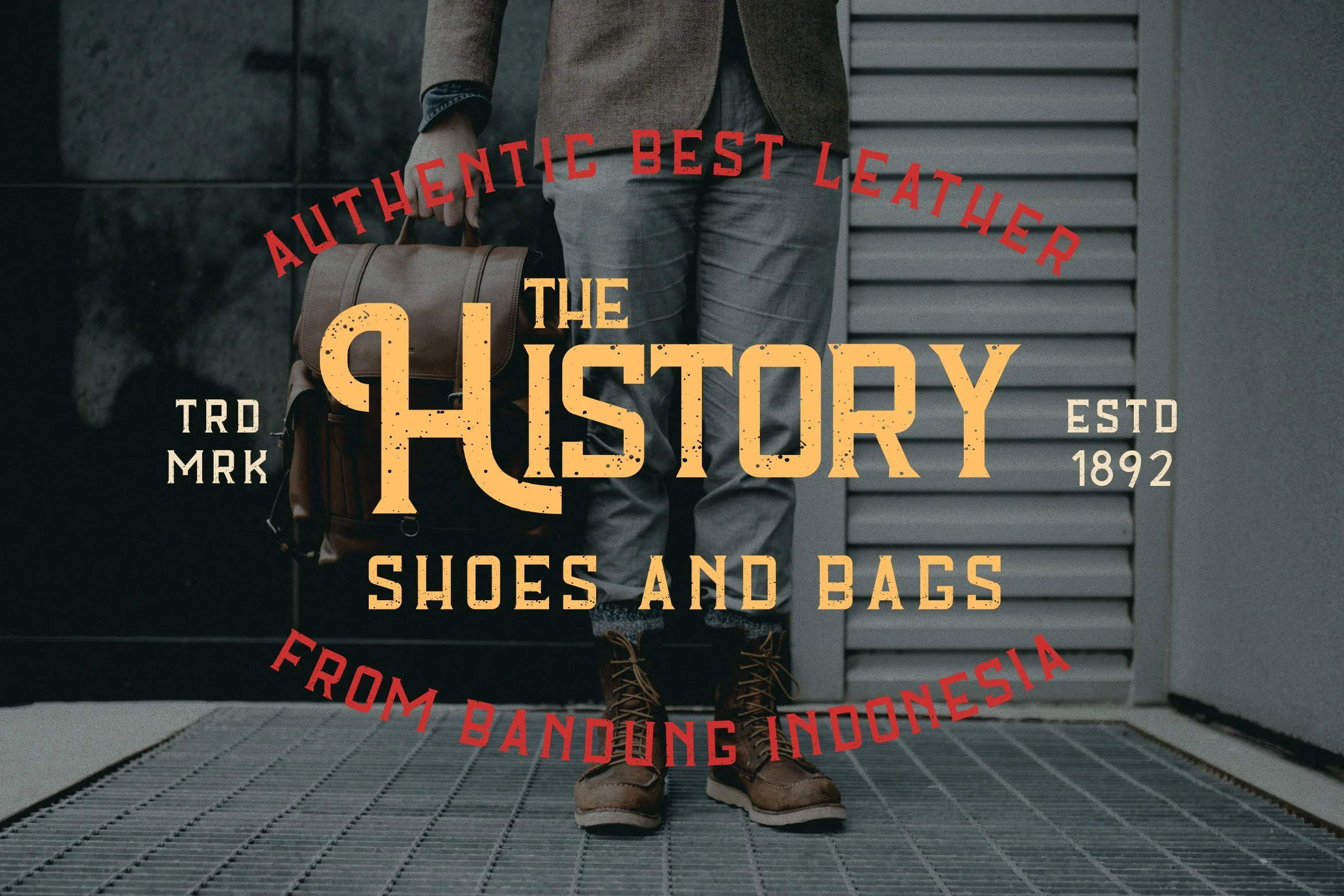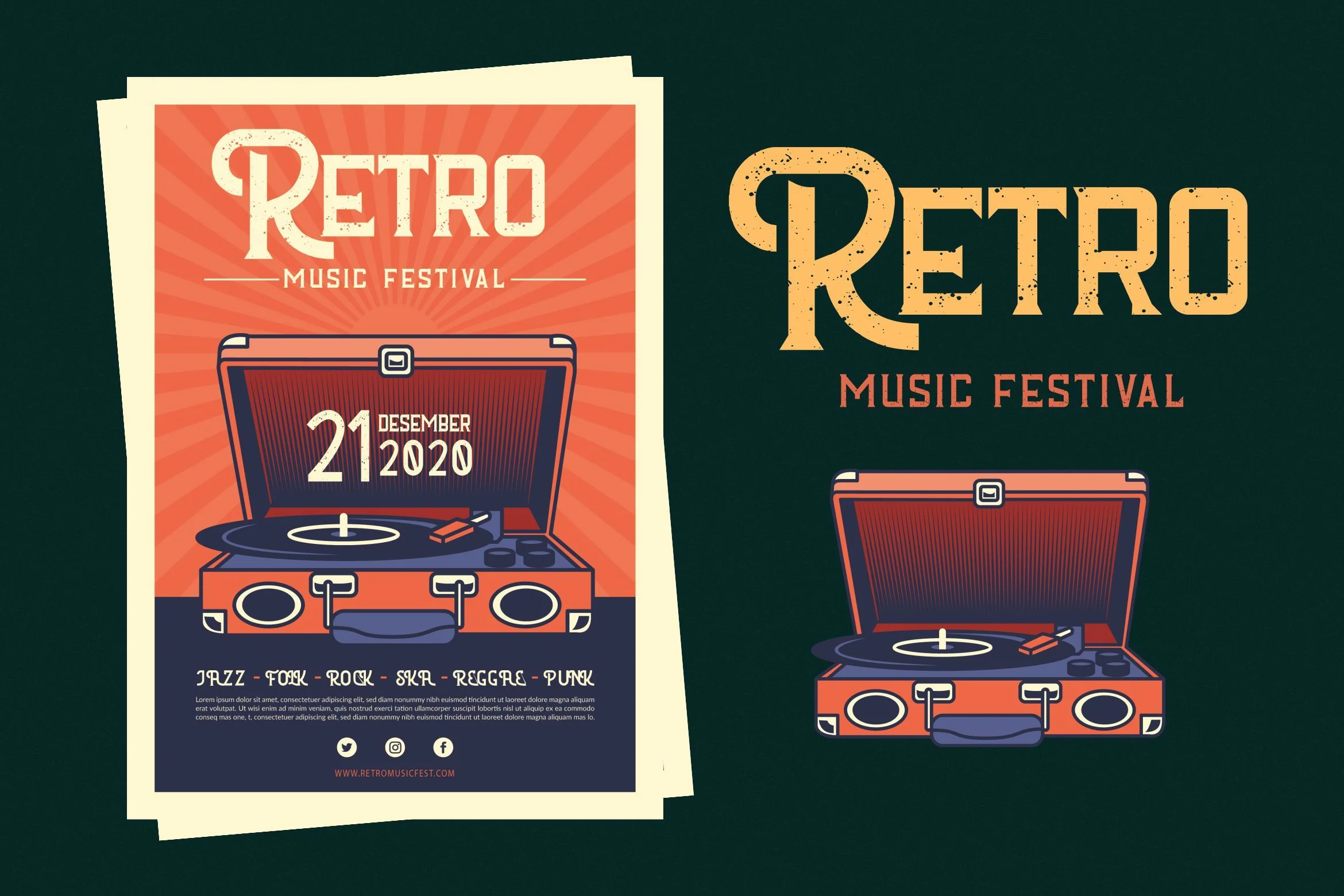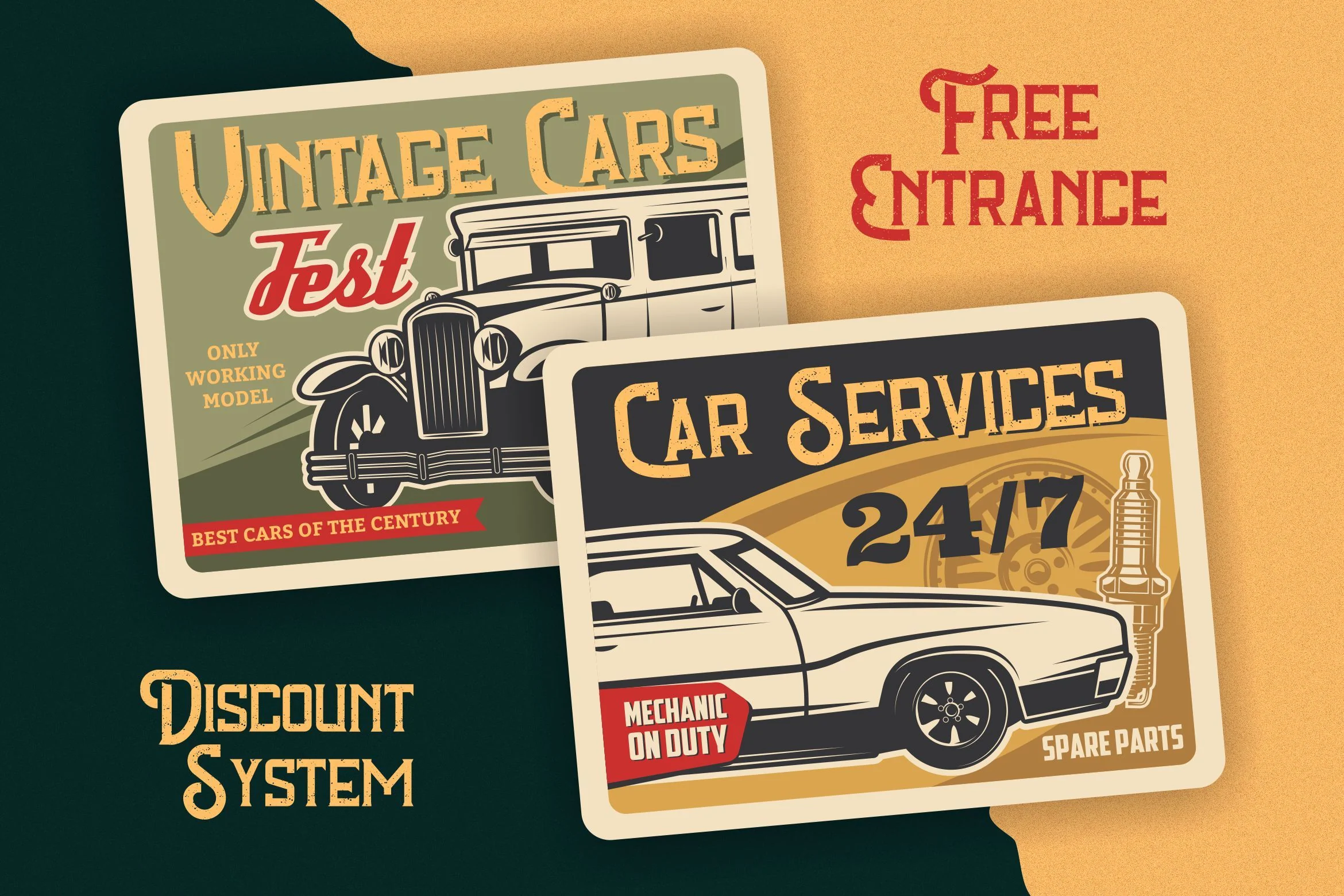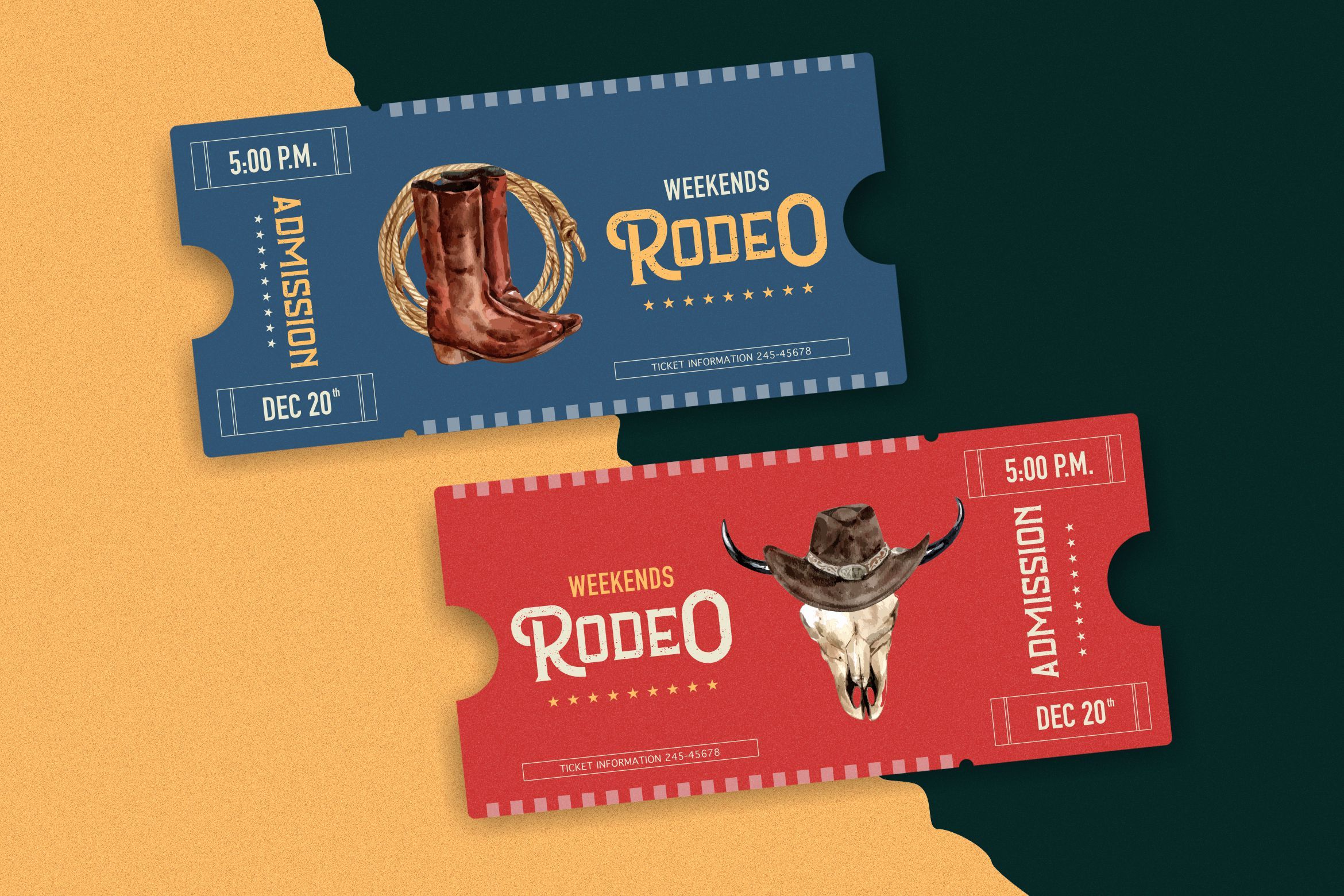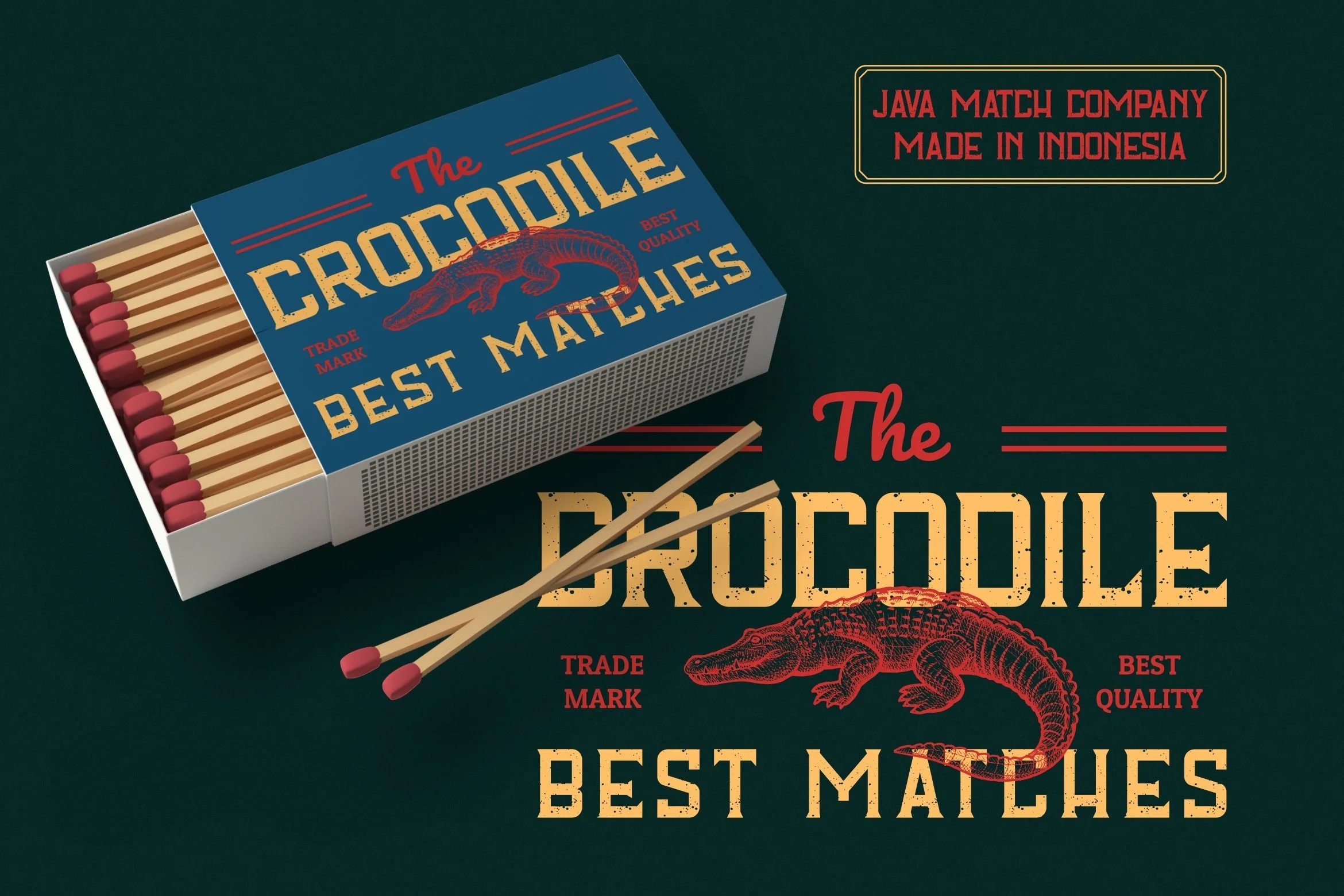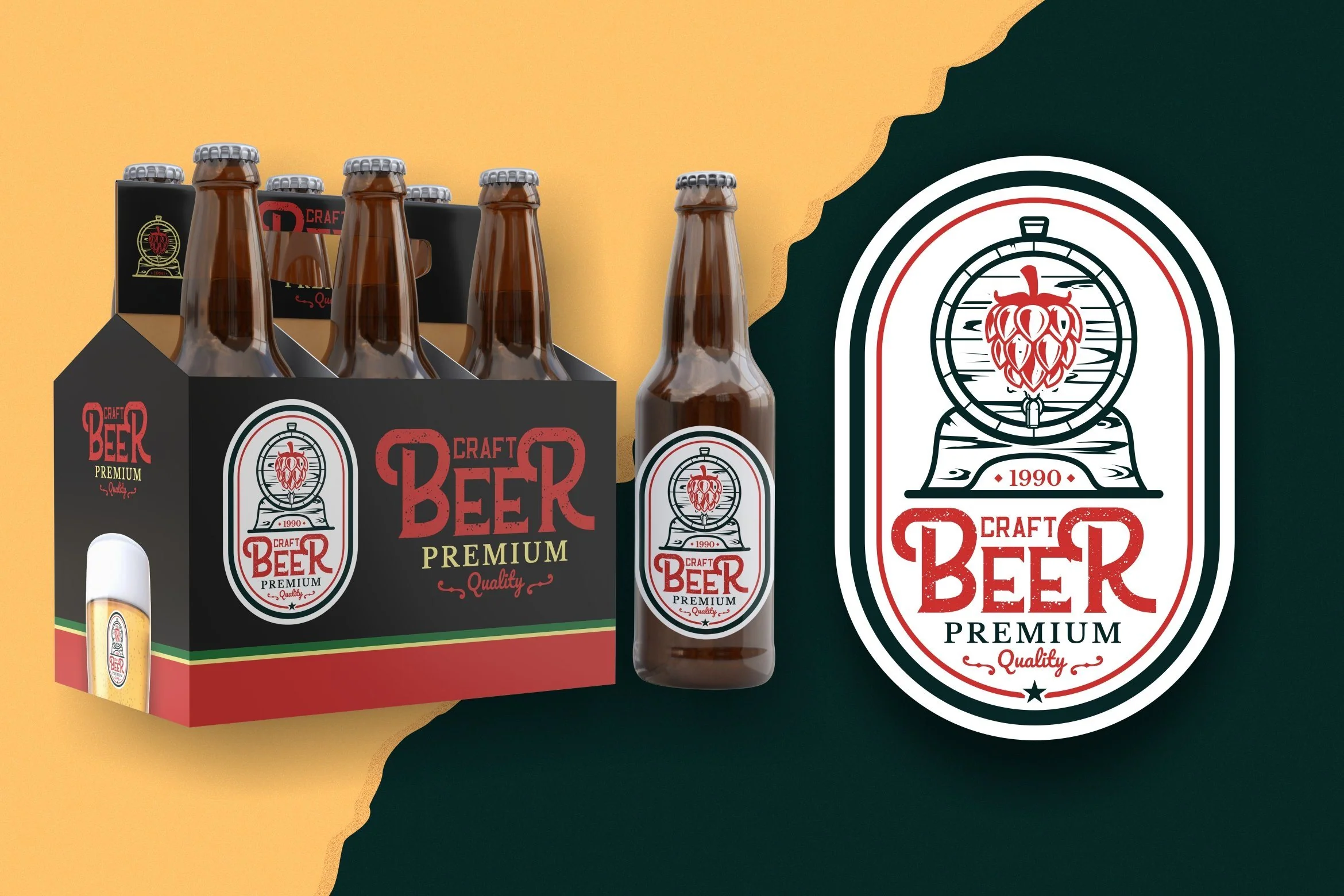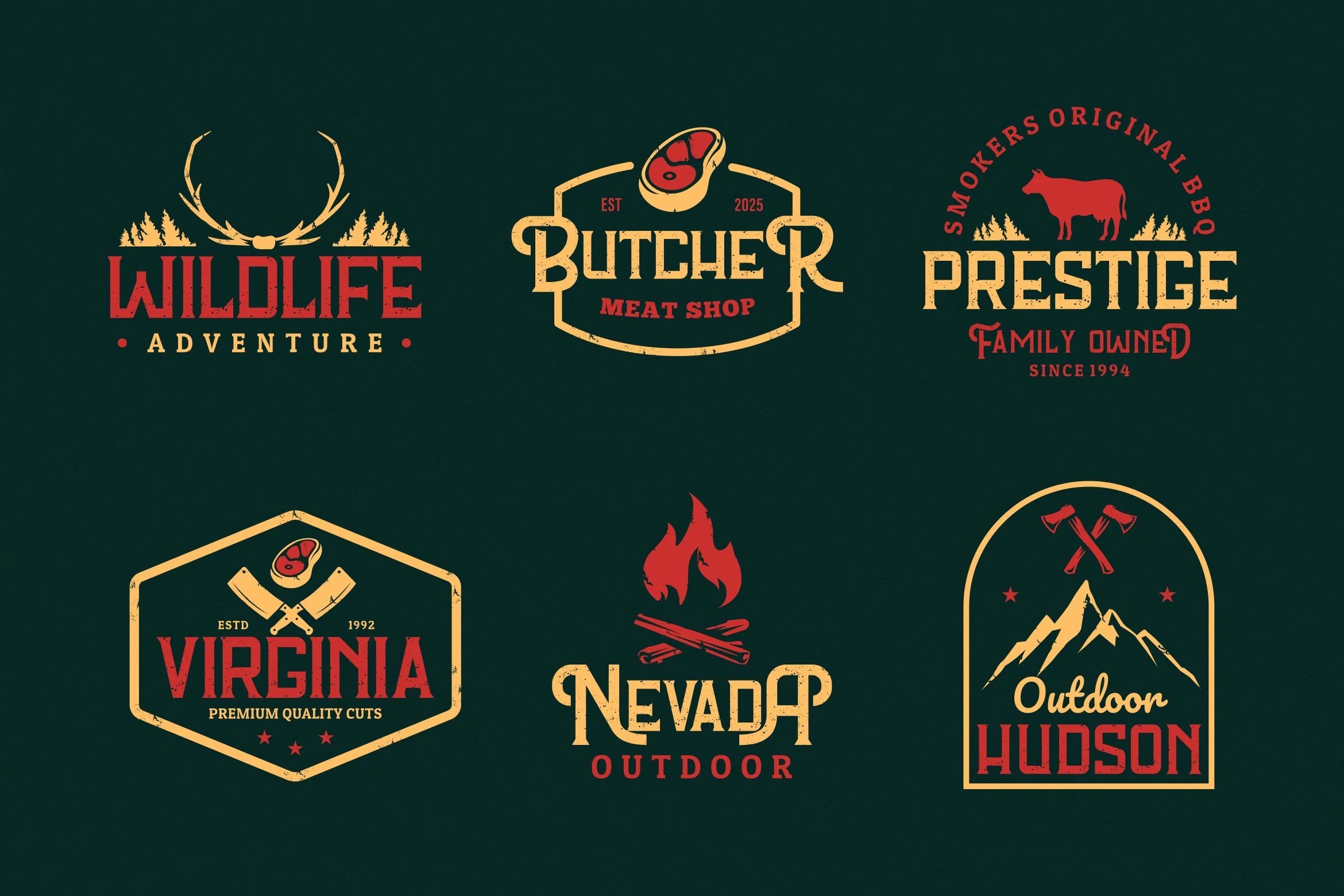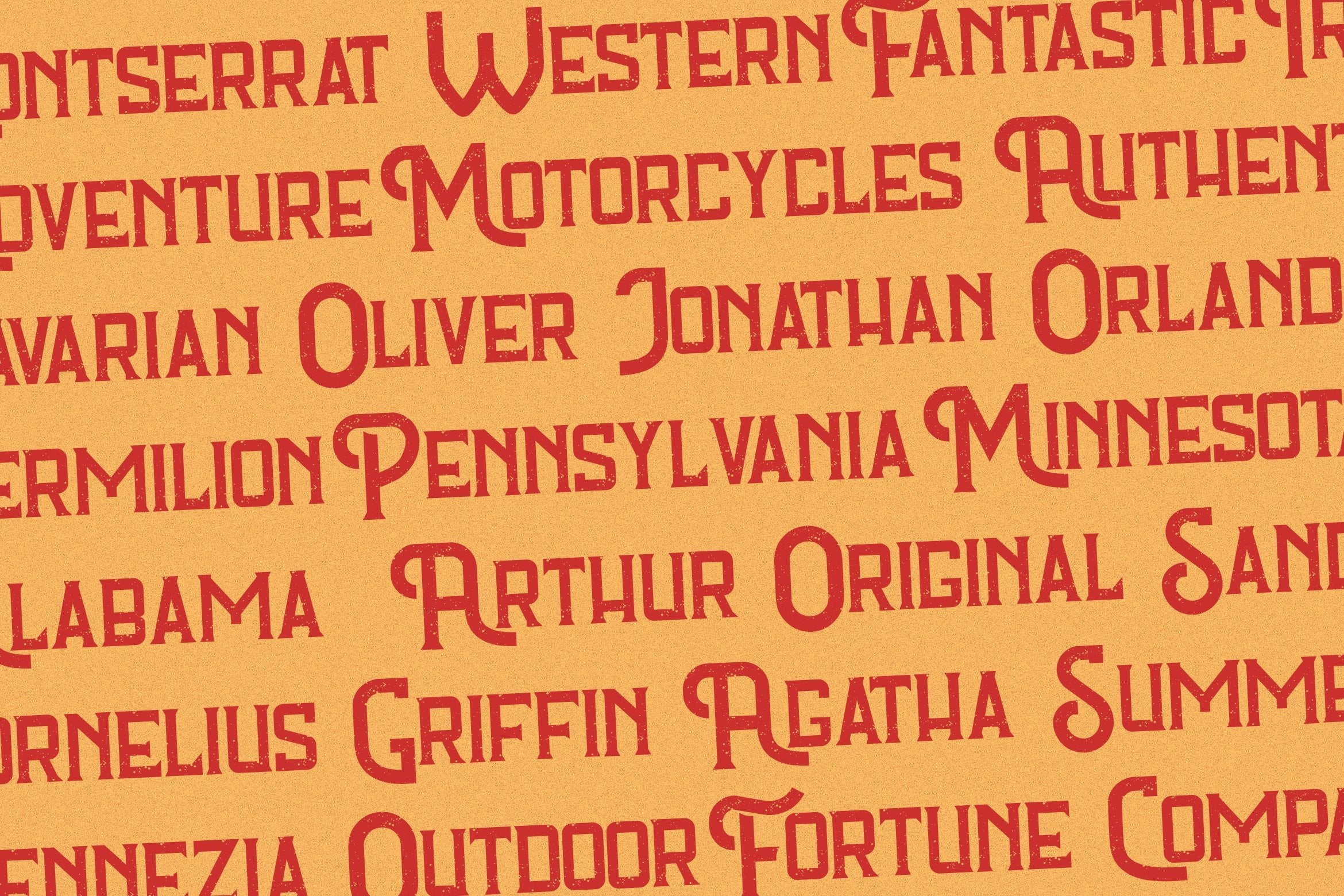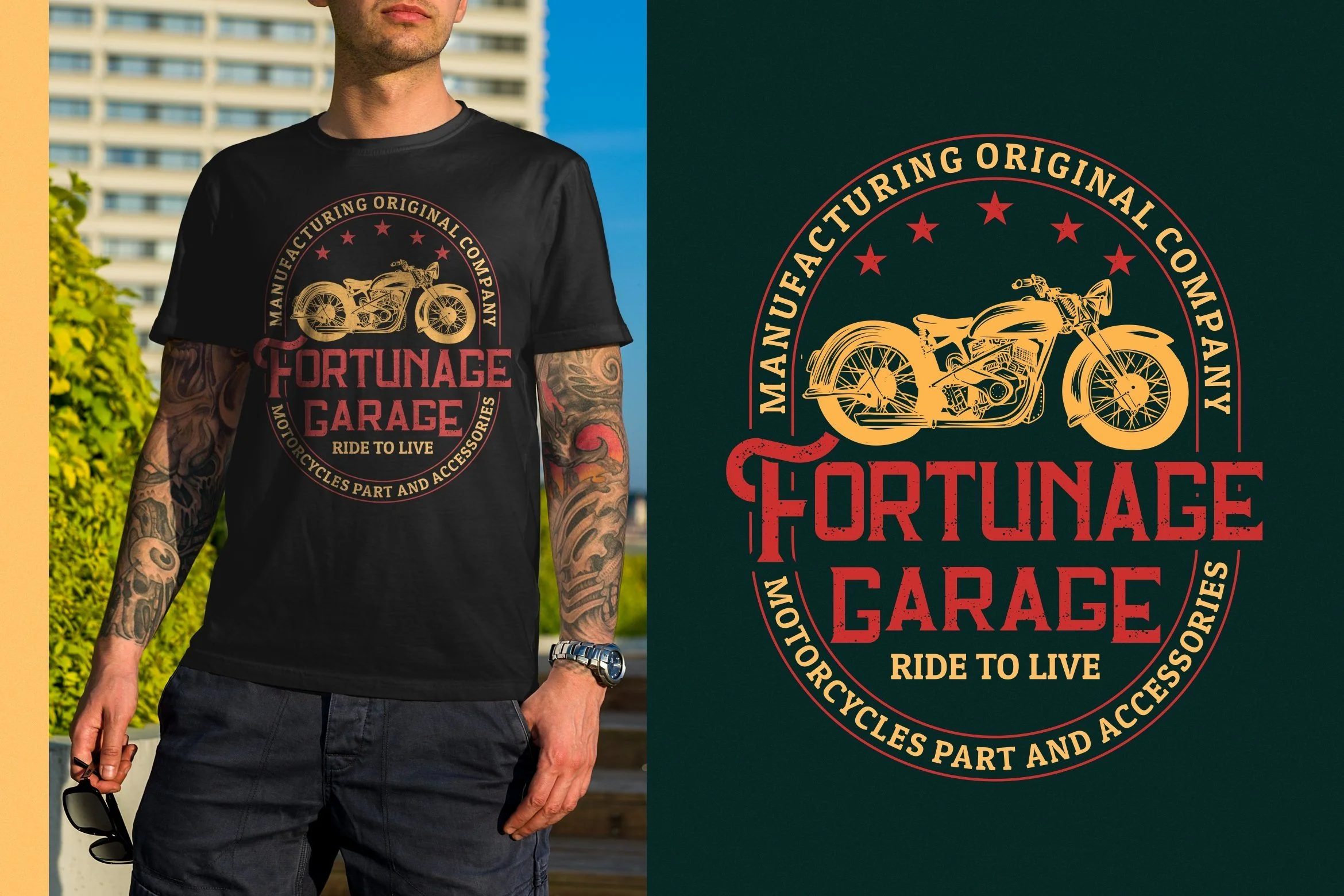
Fortunate - Original Hand Drawn Retro Font
Introducing Fortunate - Original Hand Drawn Retro Font
Fortunate is a Hand Drawn Retro Font with stylish textured style. Fortunate has a unique design taste and combine with classic retro style of the 80s, trendy, vintage, and sporty. Fortunate is perfect for vintage lovers, besides this font is also perfect if used for brands such as: barbershop, motorcycle club, clothing, coffee shop, barbeque, steak, shoe brands, vapor shop, hipster and many more.
This Font Template contains Classy, Elegant, Creative, Cool and has a Unique Concept.
Introducing Fortunate - Original Hand Drawn Retro Font
Fortunate is a Hand Drawn Retro Font with stylish textured style. Fortunate has a unique design taste and combine with classic retro style of the 80s, trendy, vintage, and sporty. Fortunate is perfect for vintage lovers, besides this font is also perfect if used for brands such as: barbershop, motorcycle club, clothing, coffee shop, barbeque, steak, shoe brands, vapor shop, hipster and many more.
This Font Template contains Classy, Elegant, Creative, Cool and has a Unique Concept.